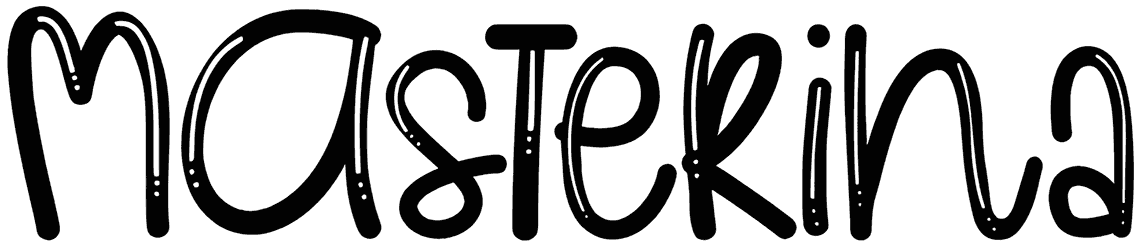
Masterina Font
A mixture of smooth and flexible uppercase and lowercase letters have formed this brush font called Masterina. The doodle font is capable of making your designs cute and silky. So there is the logic behind using it in designing cartoons, comic books, baby toiletries, restaurant logos, and the sweet and food industry.
Masterina is a cute and unique hand drawn. Its light brush style it incredibly fitting to a variety of design, especially the one that need personal hand drawn letters.